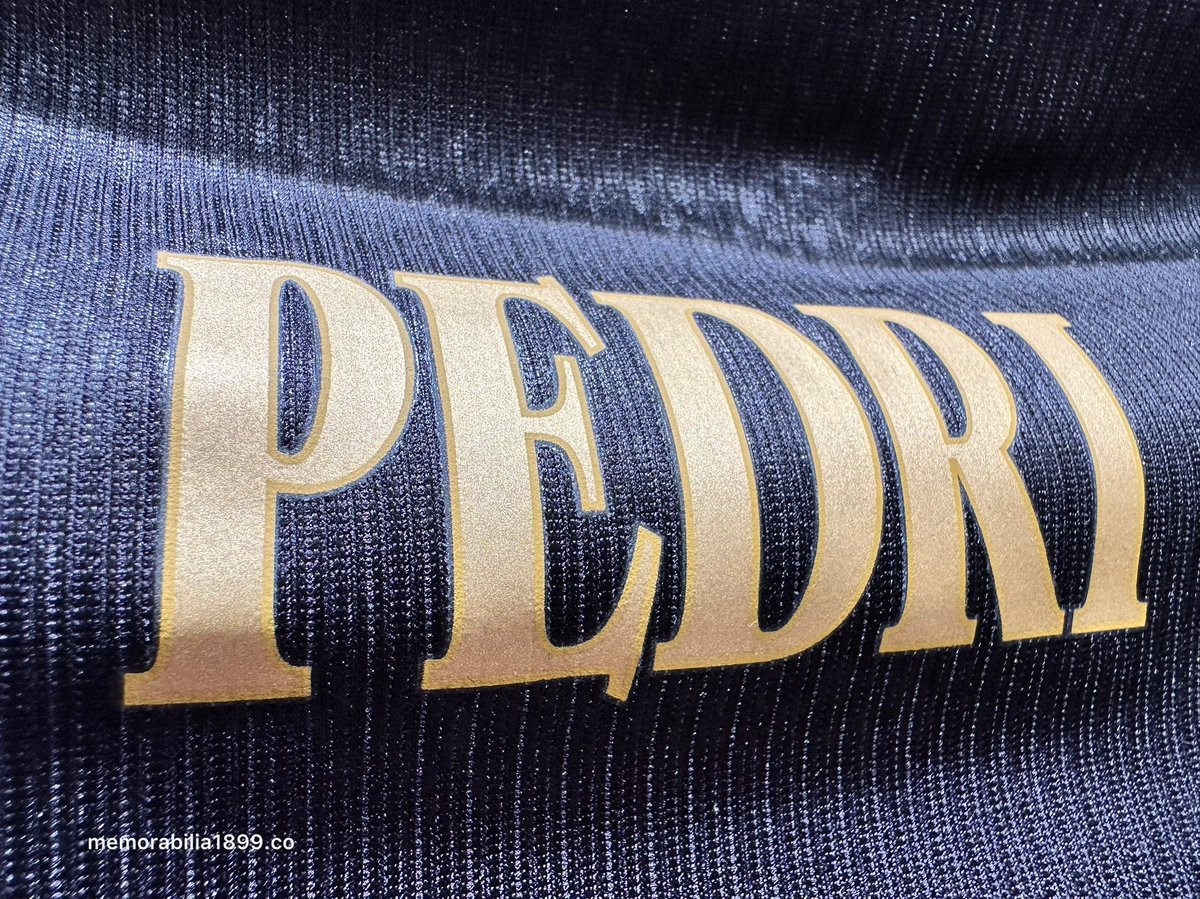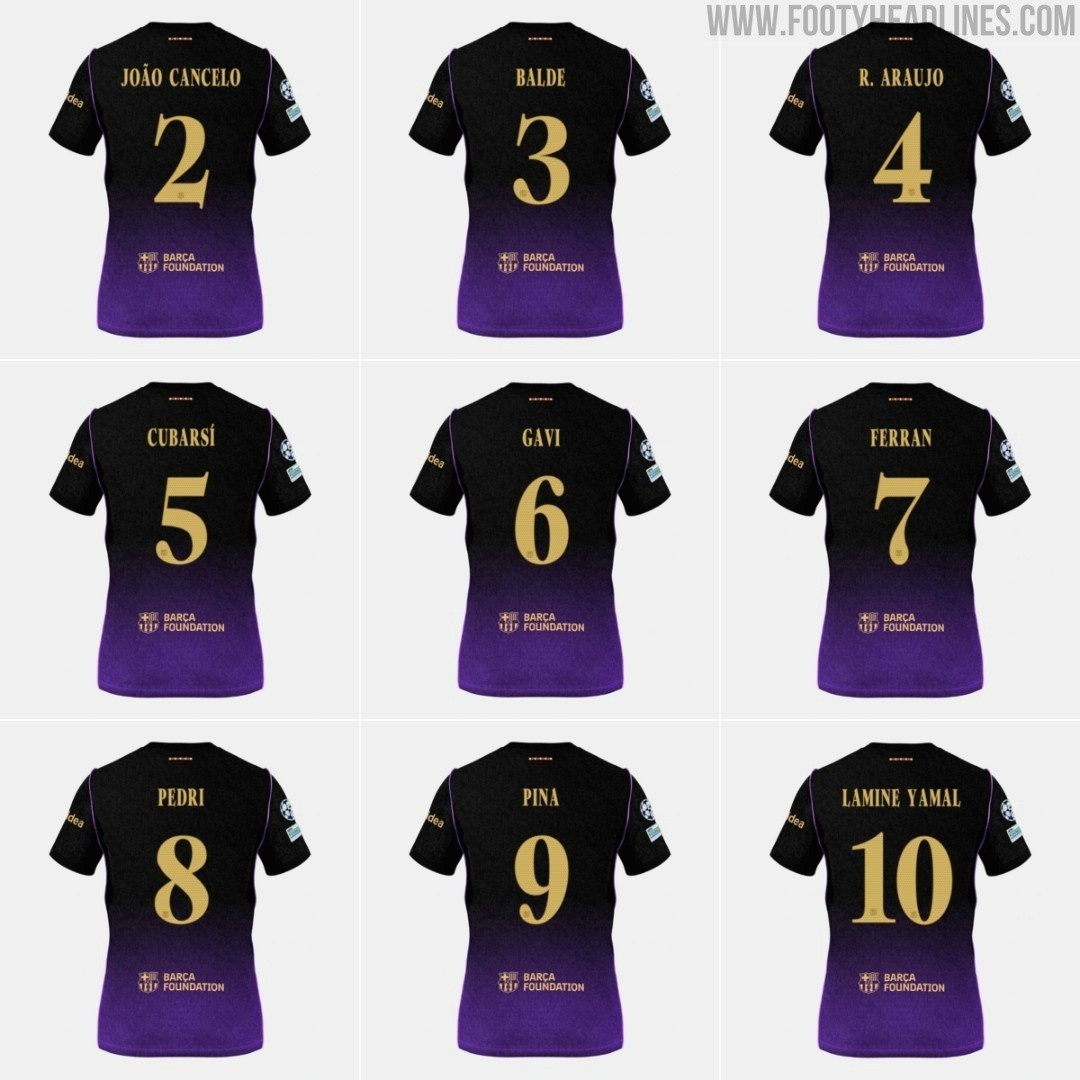
FC Barcelona 26-27 Away Kit Font Features Oversized Letter Typo
FC Barcelona's new 26-27 away kit, created as part of an exclusive Nike x Barça x Kobe Bryant collaboration, features a bespoke custom typeface dubbed the Gold Mamba font. However, detailed photos from the club's official store have revealed an unannounced design flaw in the nameset. On goalkeeper Joan García's jersey, the initial letter J appears dramatically oversized compared to the rest of the letters.
The error was first highlighted on social media by kit insider @memorabilia1899 and @@jerseystory_vn. In close-up images of Joan García's shirt, the capital J drops well below the baseline of the letters O, A, and N, creating an awkward disparity in sizing. The rest of the custom typeface otherwise features sophisticated serif details and metallic gold or monochrome outline finishes designed specifically for the Kobe Bryant-inspired collection.
Despite the noticeable typo, reports indicate that FC Barcelona will not immediately recall or replace the flawed shirts. Instead, the club plans to sell through the existing physical stock printed with the initial flawed batch before releasing an updated, corrected version of the nameset to retailers and fans.
The Gold Mamba custom font remains one of the defining visual features of Barcelona's 26-27 away kit collection, which blends a purple-to-black gradient palette with iridescent serpent-inspired detailing. Once the current stock of namesets is exhausted, Barcelona and Nike are expected to roll out the revised font with properly proportioned lettering for future shirt printing.